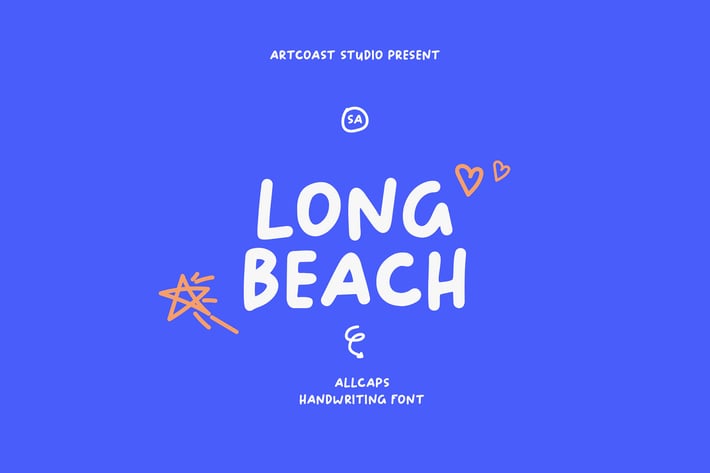
Long Beach - Handwriting Font
SA Long Beach is a handwriting style font that gives a soft, personal aesthetic. The font incorporates rounded and curved letters to emphasize its casual and fun nature.